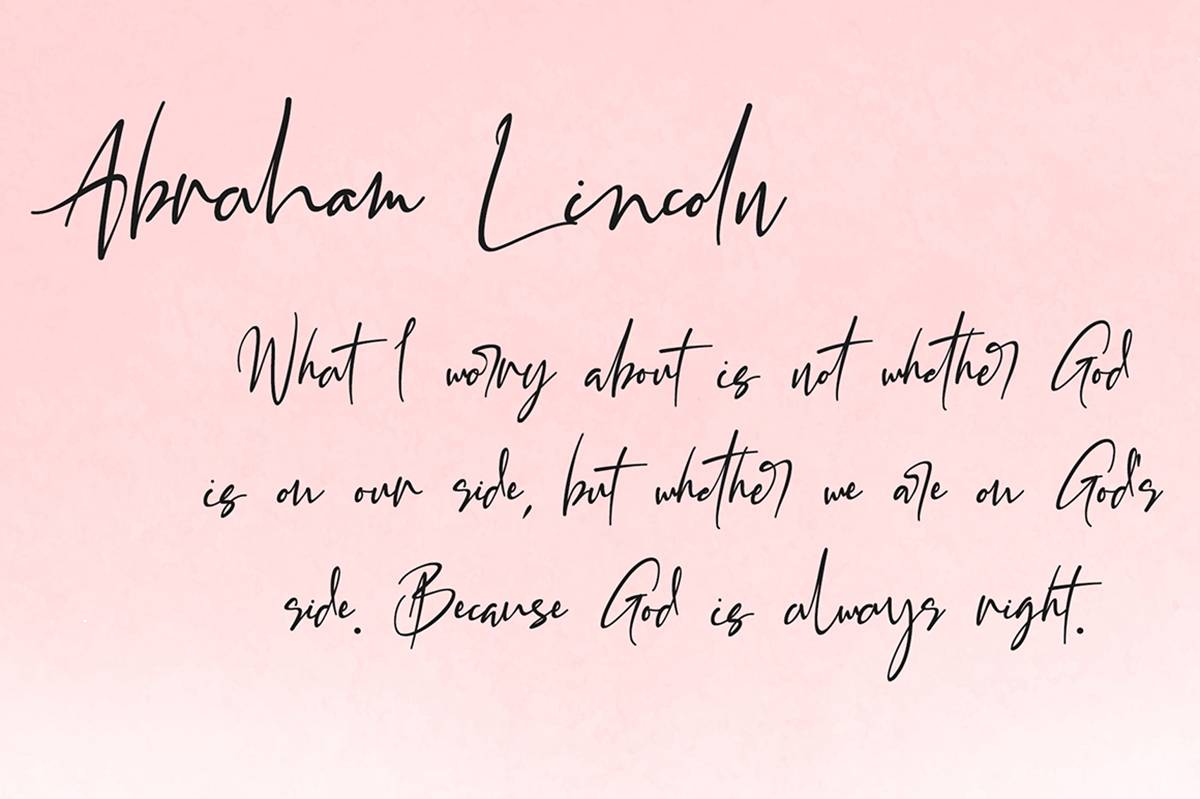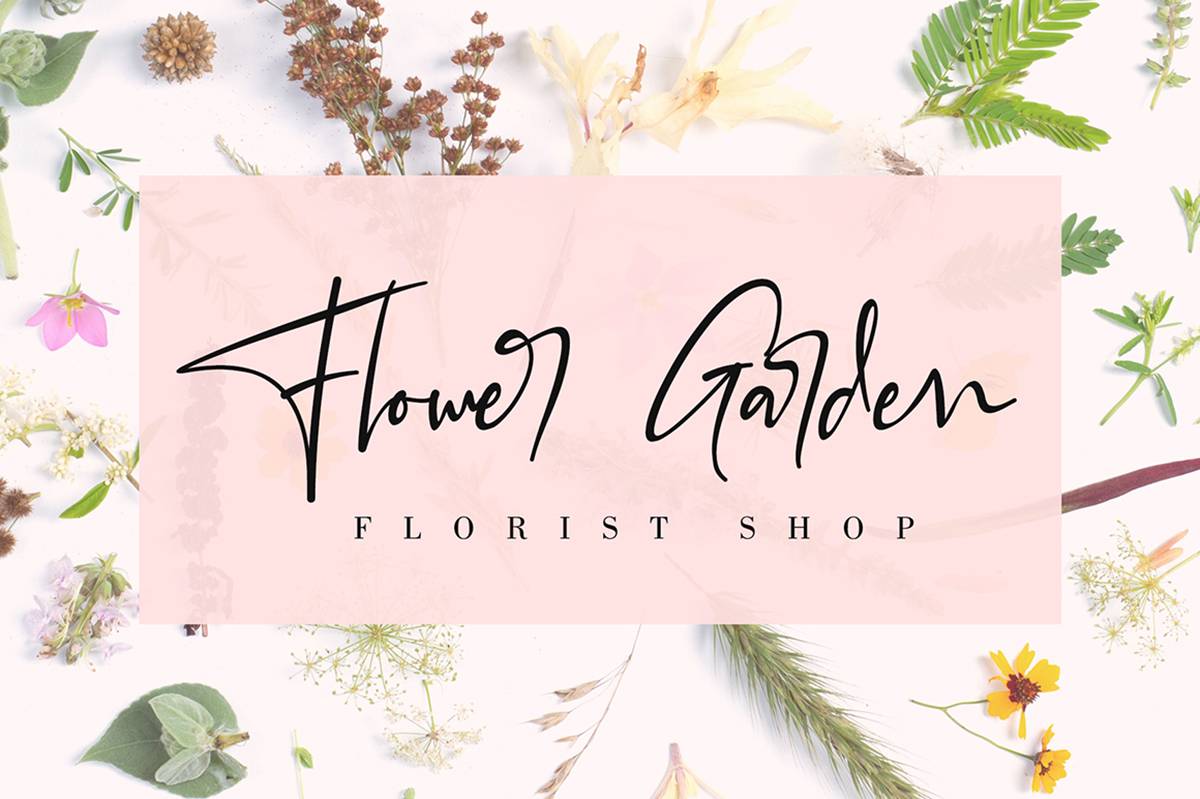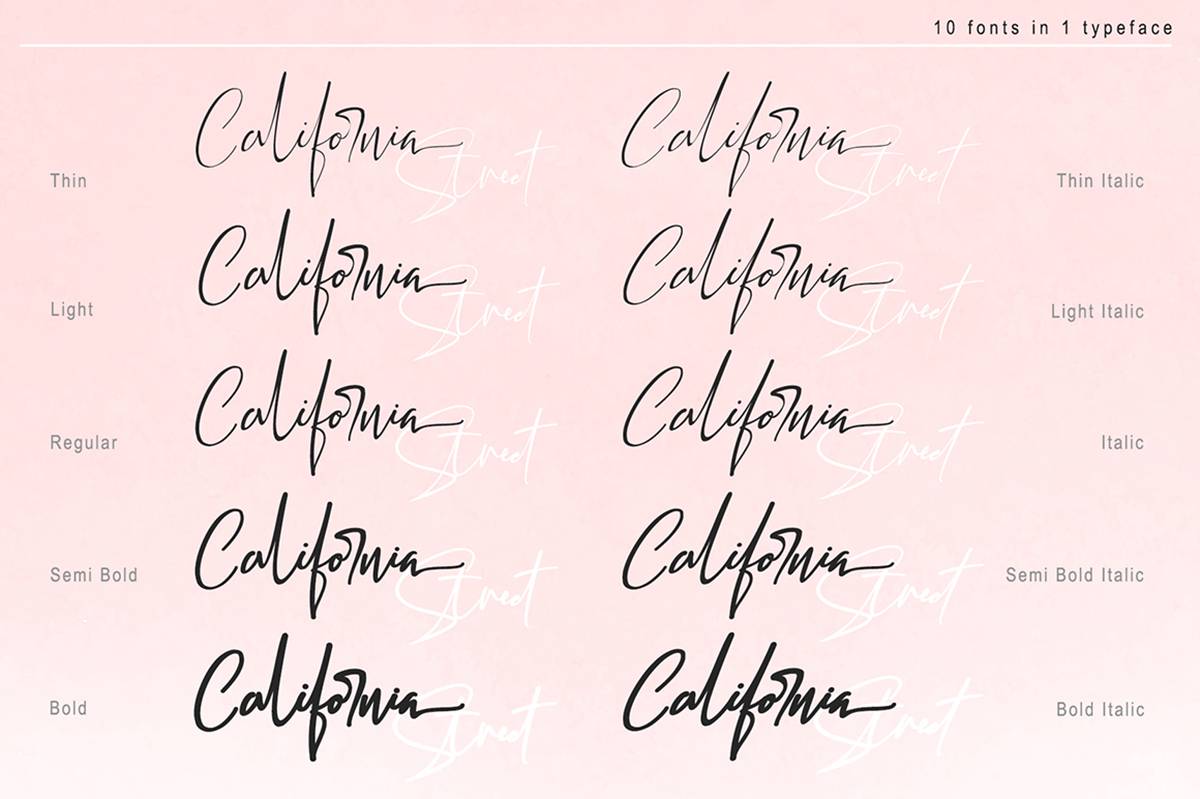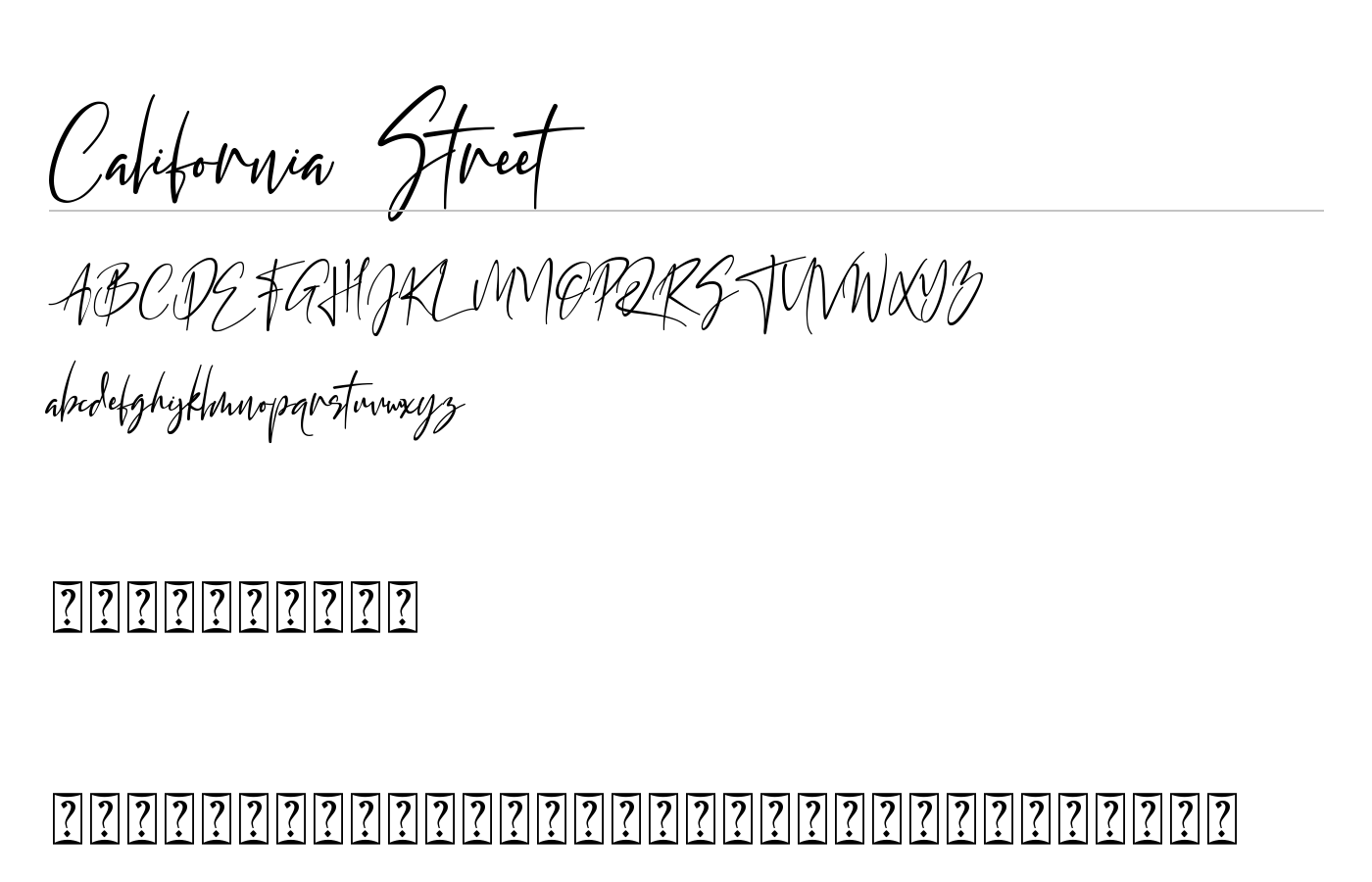
California Street is a lively and elegant script font with a handwritten feel, characterized by its thin, flowing strokes and dynamic letterforms. Its tall, slender letters and casual yet refined style make it perfect for creative branding, invitations, and fashion-related projects that seek a modern, artistic touch. This font shines best in headlines and decorative text where its unique personality can stand out.
California Street Font
About California Street Font
| Font family | California Street Font |
| Designer | Letterara 2019 |